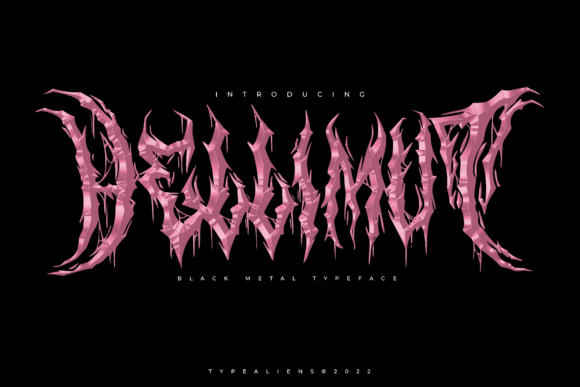
The Birth of a Metal Icon: Hellimut Font
Have you ever found yourself stuck in a creative rut, staring blankly at a blank canvas, desperate for inspiration? I’m sure we’ve all been there. But then, like a sledgehammer to the senses, a font comes crashing in – one that screams metal, darkness, and rebellion. This is exactly what the Hellimut Font embodies, a gothic masterpiece born from the depths of a serif font, twisted and distorted to produce a truly unique display of typography.
Used by metal bands and concert promoters to create eye-catching logos and posters, Hellimut Font has become an iconic symbol of the metal music scene. Its complex, roots-ridden design makes it an instant attention-grabber, perfect for designers looking to add a touch of edginess to their work.
Whether you’re a seasoned designer or a newcomer to the world of typography, Hellimut Font is a valuable addition to your toolkit – a versatile, customizable font that’s sure to leave a lasting impression.
Hellimut Font Key Features
- Font Family: Hellimut Font offers a unique, hand-drawn style with a variety of weights and styles to suit different design needs.
- Character Set: The font includes a wide range of characters, including uppercase and lowercase letters, numbers, punctuation, and special characters, making it suitable for various languages.
- Unique Characteristics: Hellimut Font’s unique hand-drawn style, with its imperfections and nuances, adds a touch of personality and creativity to any design project.
Hellimut Font Review
I’ve had the chance to dive into the Hellimut Font, and I must say it’s an interesting specimen. Let’s break it down.
- The Hellimut Font has a unique, quirky feel to it that could add some character to your design projects.
- The font is highly customizable, with a wide range of styles and variations available.
- It’s great for projects that require a playful, lighthearted tone.
- The Hellimut Font may not be the best choice for serious, formal projects, as its quirky nature can come across as unprofessional.
- The font’s sheer number of styles and variations can be overwhelming to navigate.
- Some users may find the font’s irregularities to be distracting or hard to read.
The Hellimut Font is a fun, creative tool that’s perfect for projects that require a playful touch. While it may not be suitable for every project, it’s a great addition to any designer’s toolkit. With a little care and attention, the Hellimut Font can add some much-needed personality to your designs.
Tips for Getting the Most Out of Hellimut Font
Here are some tips for getting the most out of Hellimut Font:
- Use it for titles and headings to add a touch of elegance.
- Pair it with bold fonts for a striking contrast.
Some common use cases for Hellimut Font include:
- Business cards and letterheads.
- Magazine and newspaper headlines. Alternatives to Hellimut Font
Alex Brush is a beautiful, elegant script font that is perfect for adding a touch of sophistication to your designs. It’s ideal for use in logos, invitations, and other creative projects where a handwritten feel is desired.
Compared to Hellimut Font, Alex Brush has a more refined and polished look, making it suitable for high-end designs. It’s also more versatile and can be used in a wider range of contexts.
Great Vibes is a modern script font that is perfect for adding a fun and playful touch to your designs. It’s ideal for use in logos, advertising, and other creative projects where a bold and eye-catching look is desired.
Compared to Hellimut Font, Great Vibes has a more energetic and dynamic feel, making it suitable for projects that require a lot of movement and action. It’s also more versatile and can be used in a wider range of contexts.